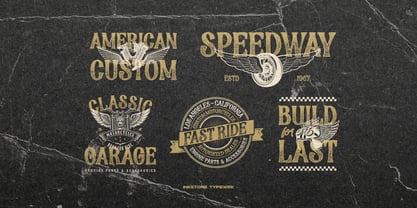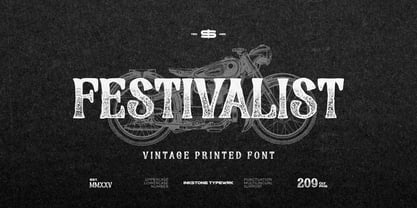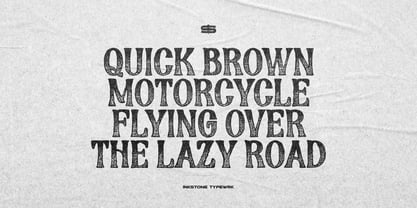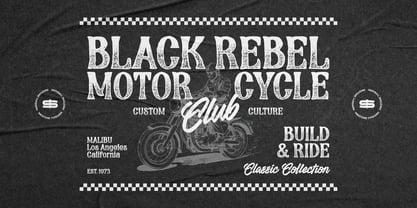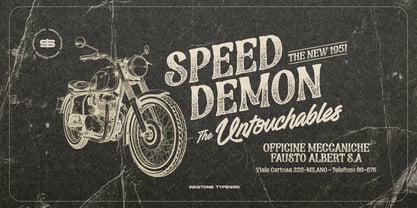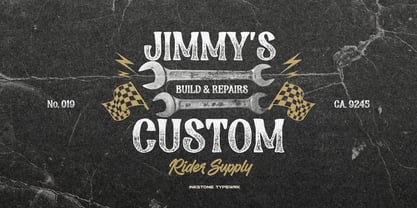
Festivalist
by Inkstone Typewrk
The Festivalist Font Family was designed by Andhika Pradana, Yono Asmadiputra and published by Inkstone Typewrk. Festivalist contains 1 styles. More about this family
Festivalist - Vintage Printed Font
Festivalist is not just a font—it’s an attitude. A bold, classic serif infused with rough textures and an authentic hand-drawn feel, crafted for those who live loud and ride fast. Its organic, vintage letterpress effect gives every letter a raw, worn-in character, making it feel like it was pulled straight from an old-school garage sign or a weathered biker jacket patch.
Inspired by the golden era of classic motorcycles, retro garages, and rebellious craftsmanship, Festivalist brings an unmistakable sense of nostalgia while staying effortlessly stylish. Whether you're designing for vintage branding, rugged apparel, bold packaging, or eye-catching posters, this font commands attention with its edgy, unapologetic presence.